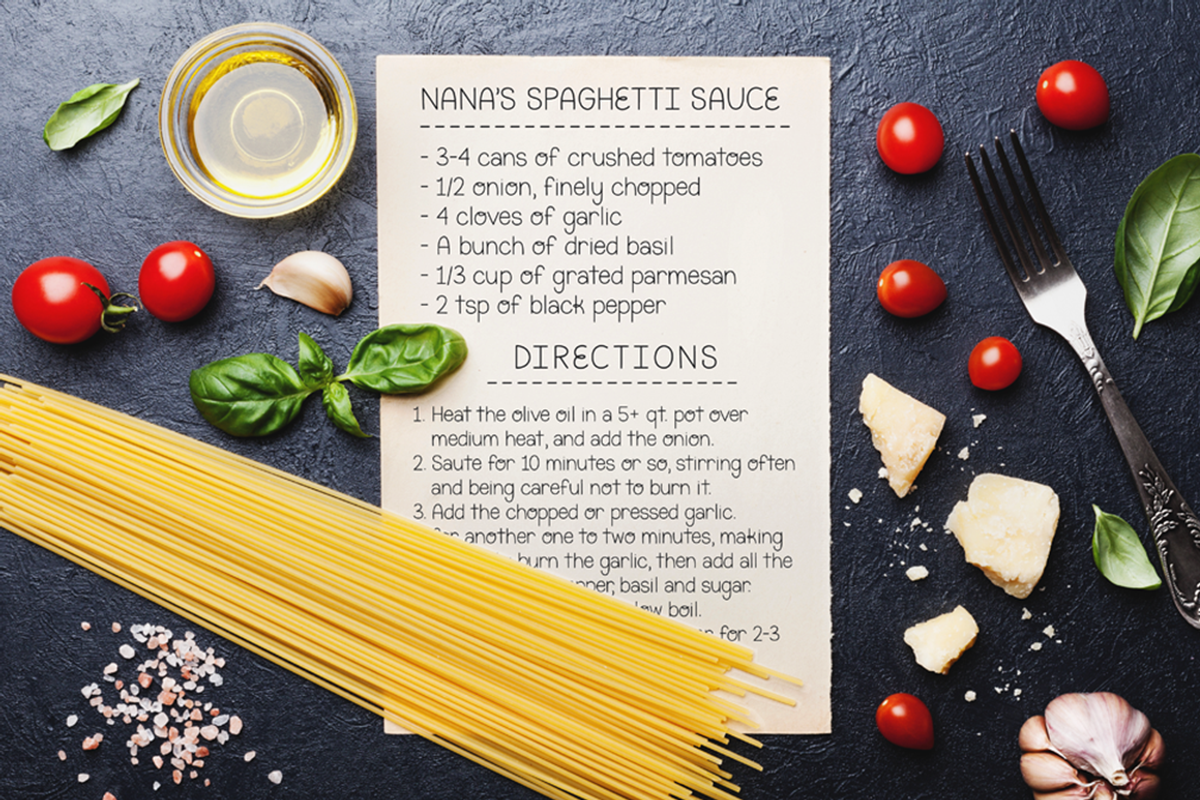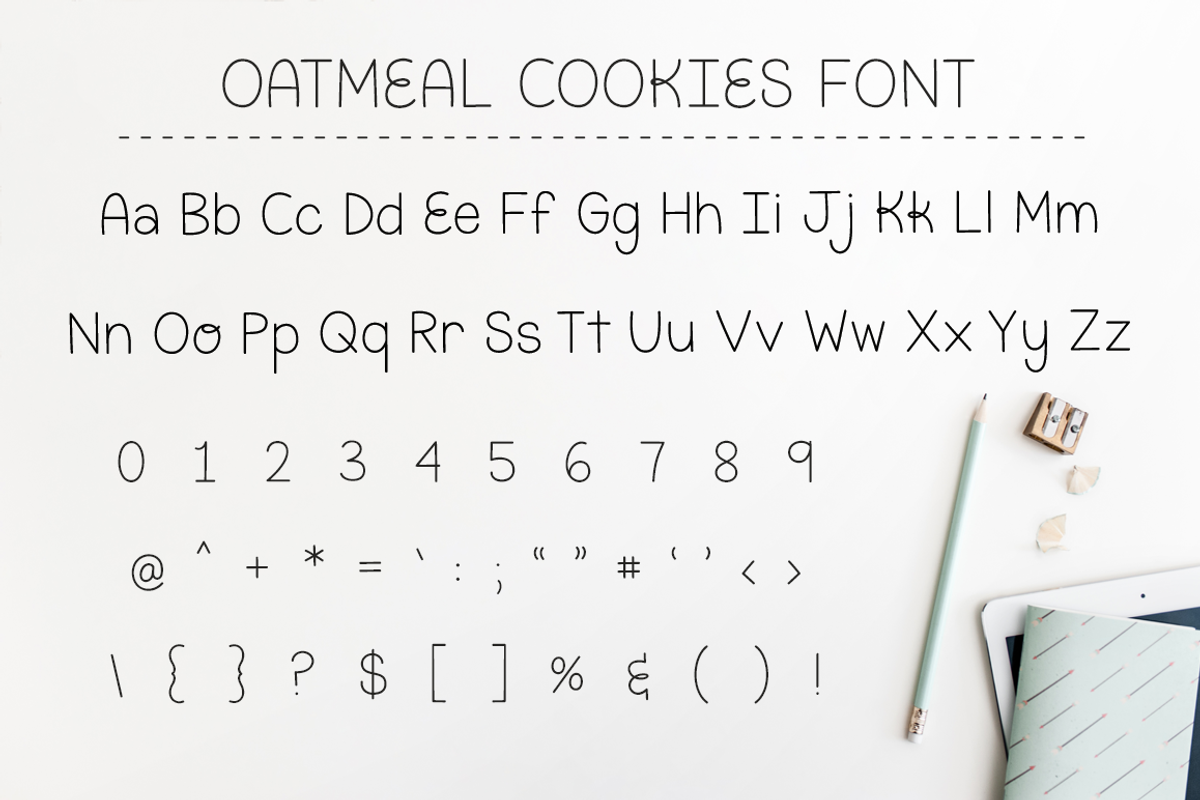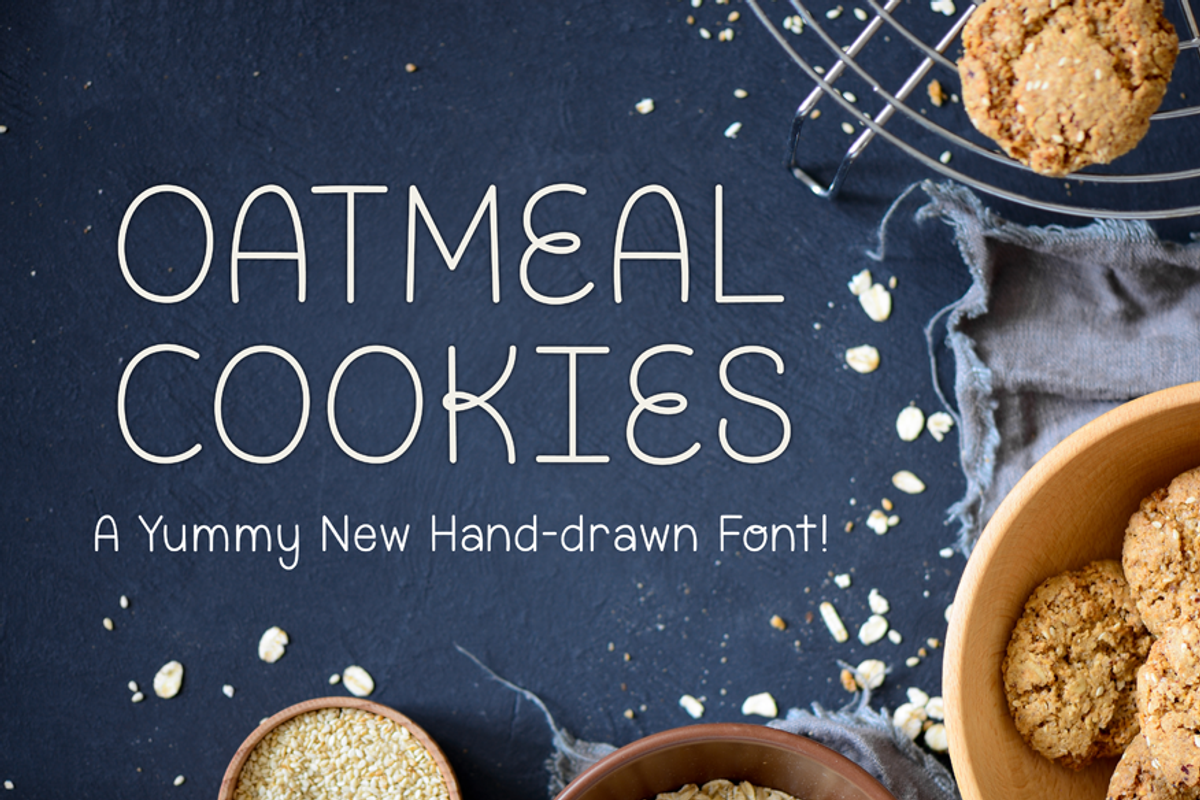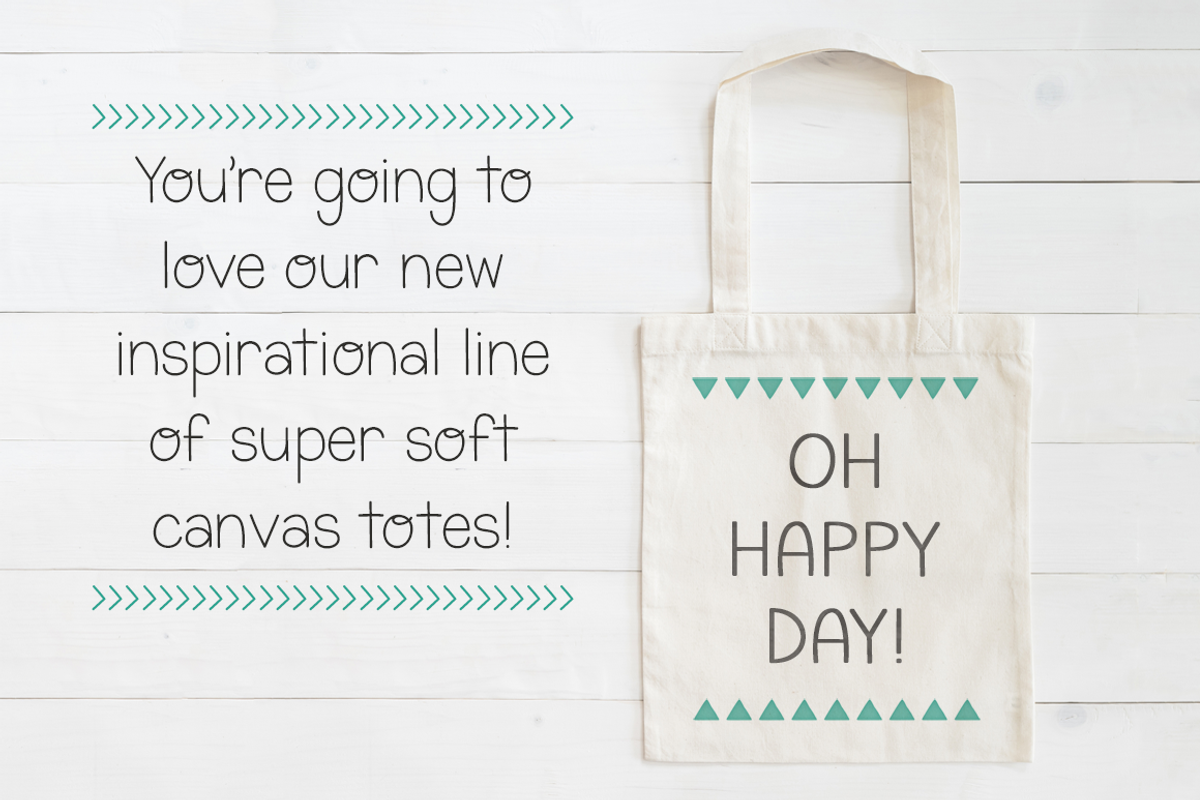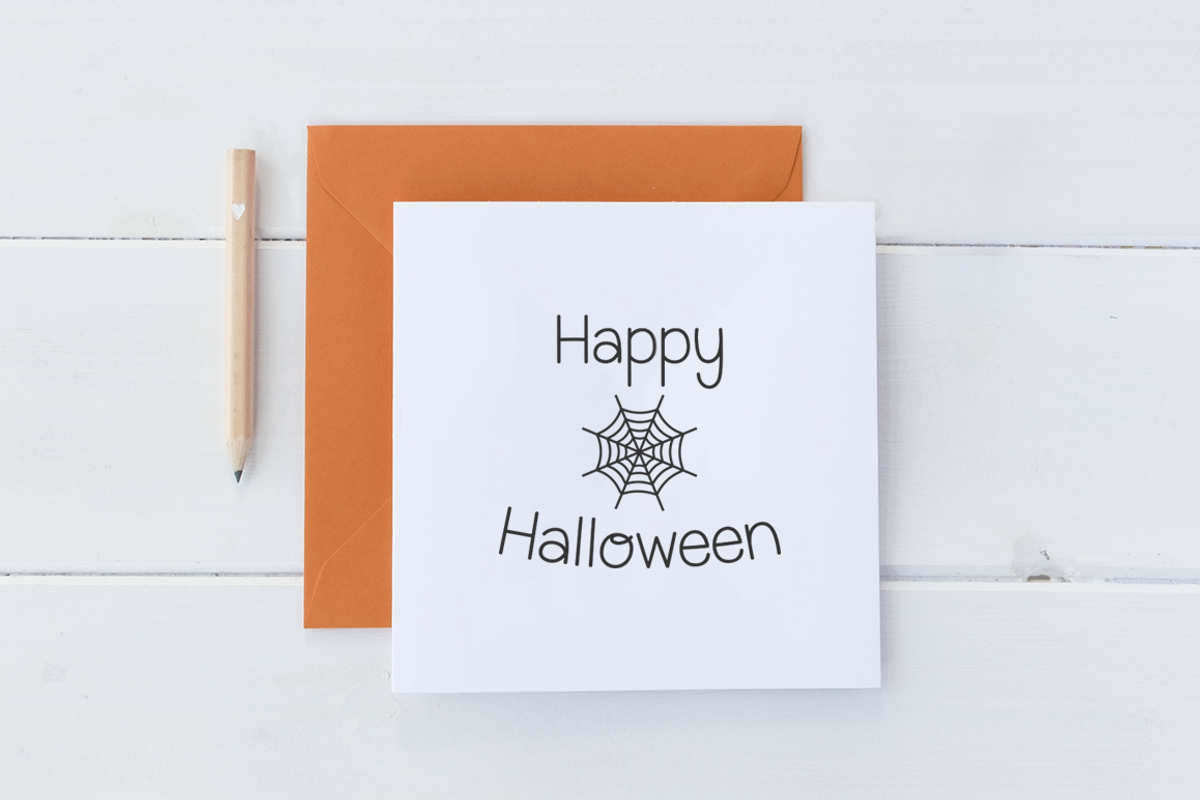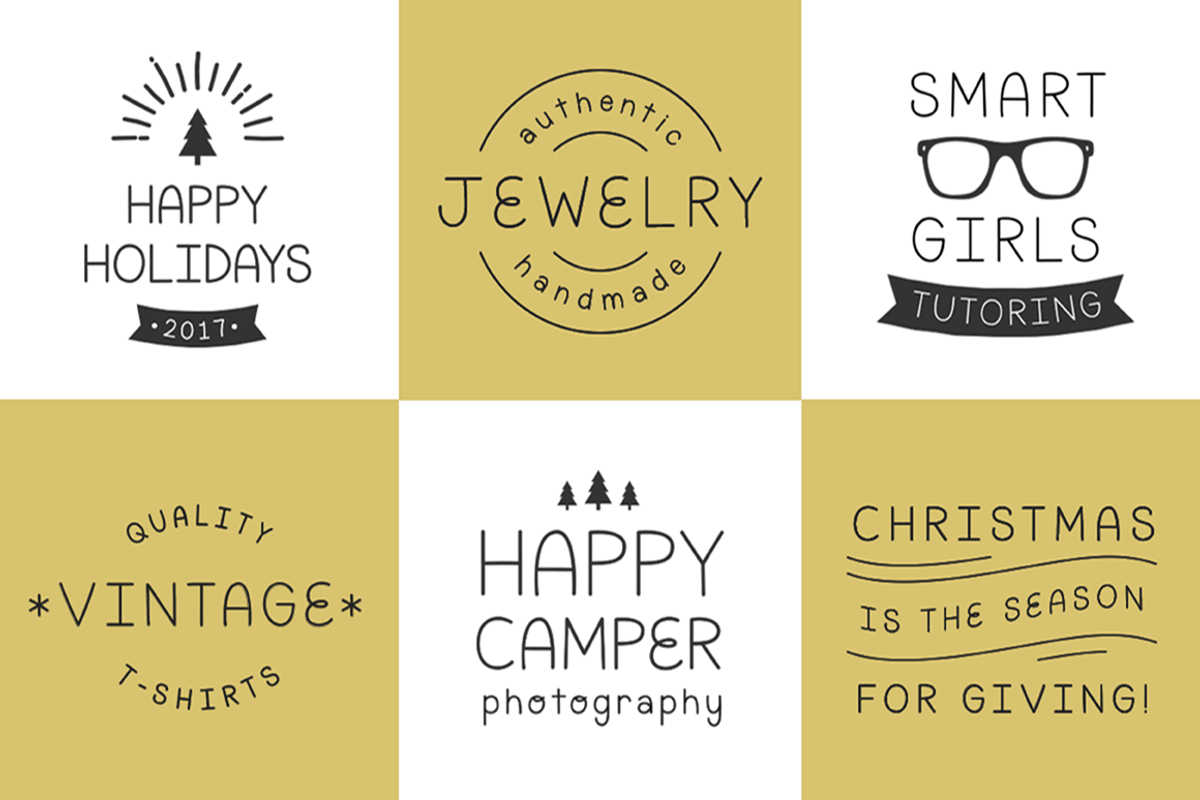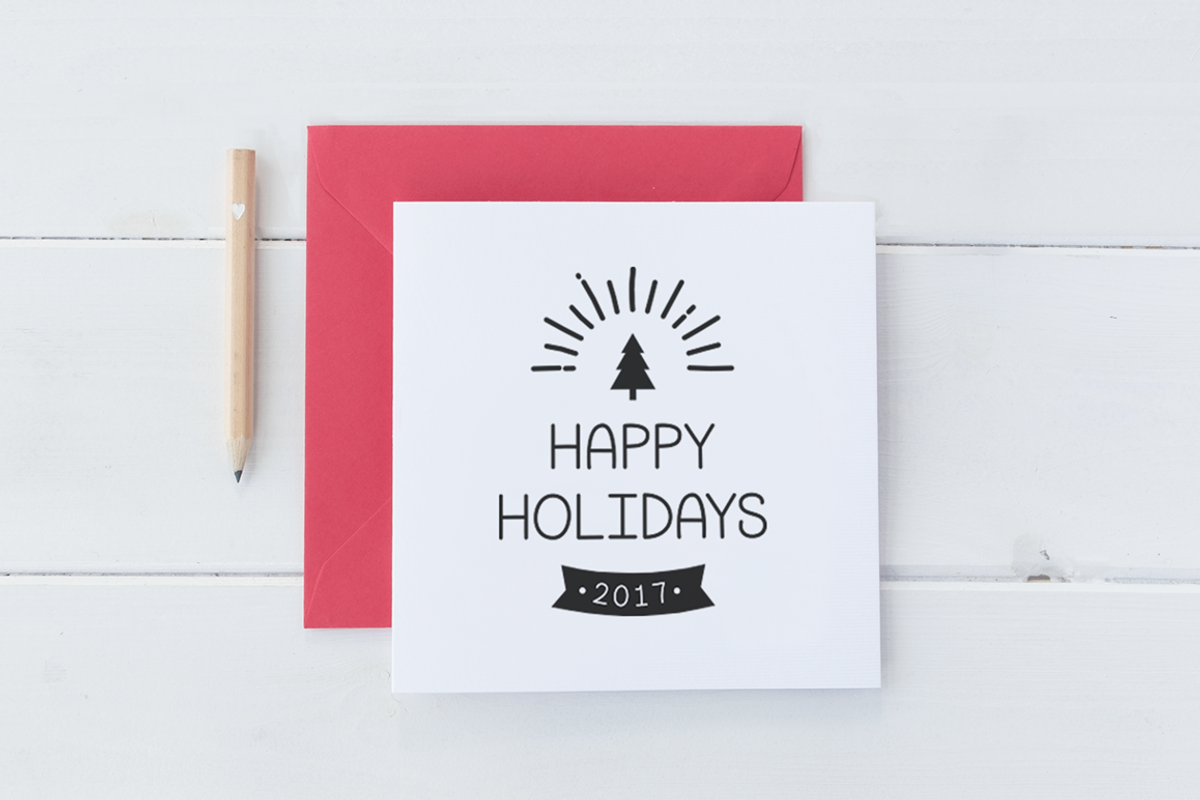
Oatmeal Cookies Font
You’ll love the hand-drawn feel that OATMEAL COOKIES font will bring to your designs!
This fun, hand-drawn font comes in 3 weights; Fine, Regular and Bold. It looks great in both caps & lower-case. You'll love how versatile it is & find that it works well for a variety of uses! You can add it to posters, prints, t-shirts, cards, etc. It's got a touch of whimsy & you'll love the hand-drawn, personal feel it gives your projects. Hope you enjoy it!